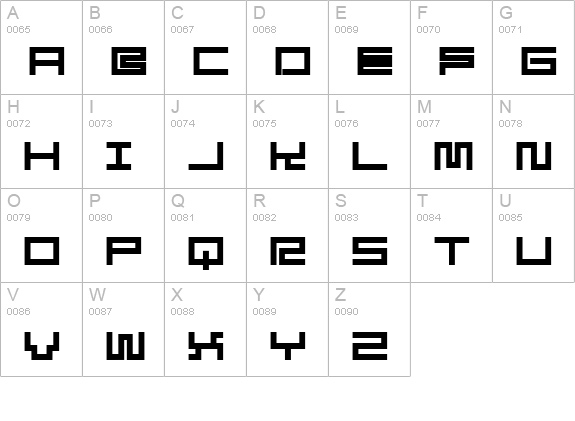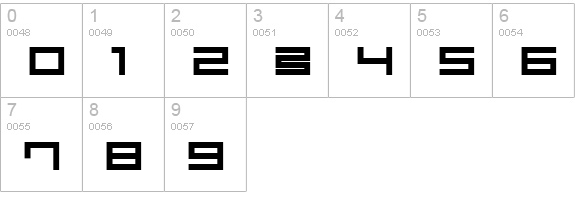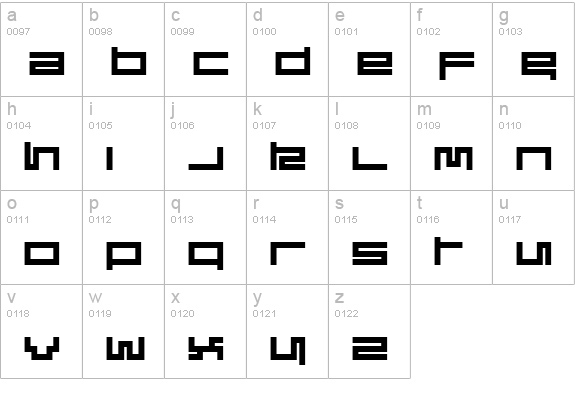
ES Bold is a strong, high-contrast variant in the ES typeface family \xE2\x80\x94 well suited to headlines, attention-grabbing titles, and strong calls-to-action.
ES Bold font is a modern and stylish typeface that exudes confidence and sophistication. Its bold and strong letterforms make it perfect for headlines, titles, and branding projects that require a commanding presence. The sleek design of ES Bold font ensures readability and impact, making it a versatile choice for both digital and print applications. What's even better is that ES Bold font is available for free download at FontsMarket.com. This means you can easily access this high-quality typeface without any cost, making it a valuable addition to your font collection. Whether you're working on a professional design project or simply looking to enhance your creative work, ES Bold font is a fantastic option that combines style and accessibility.